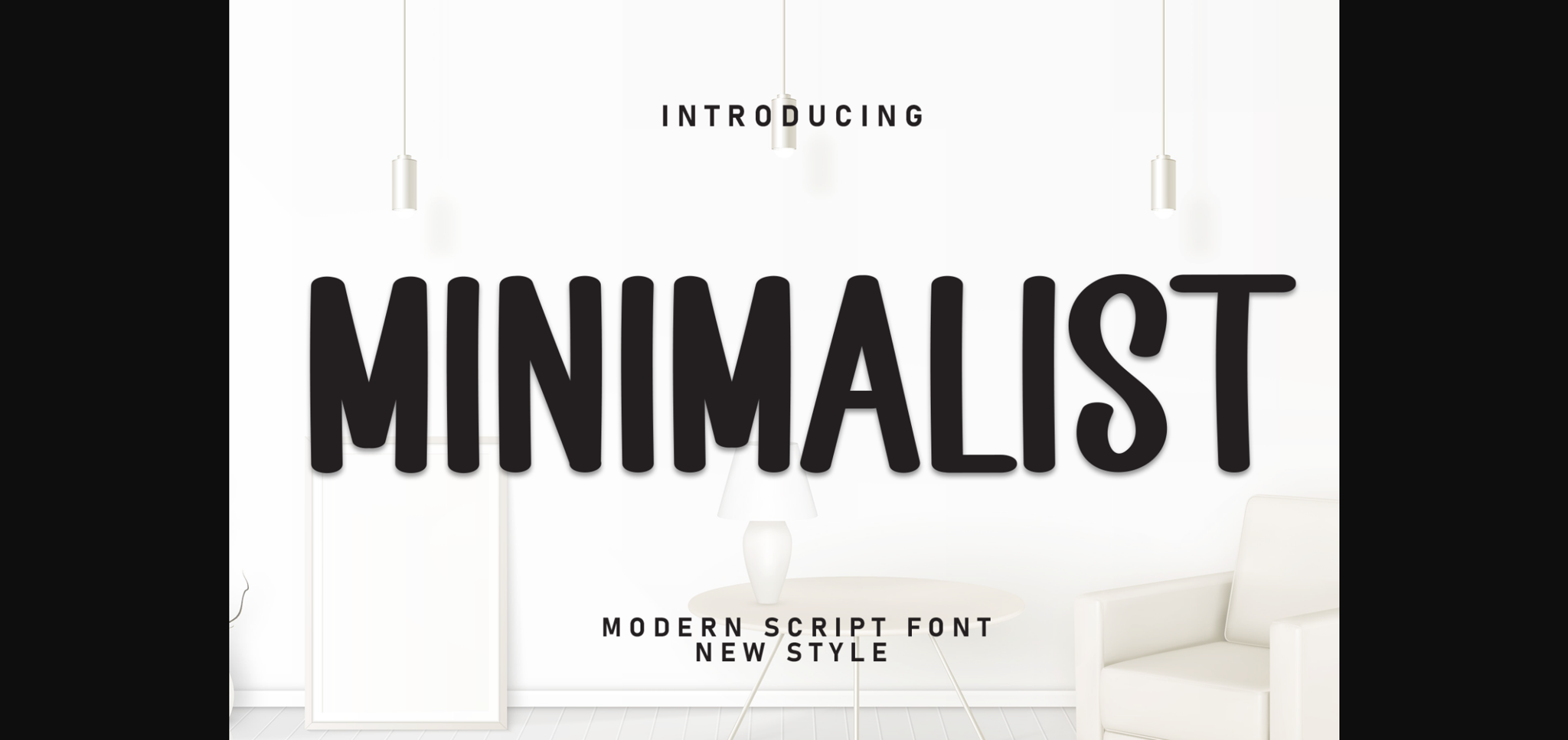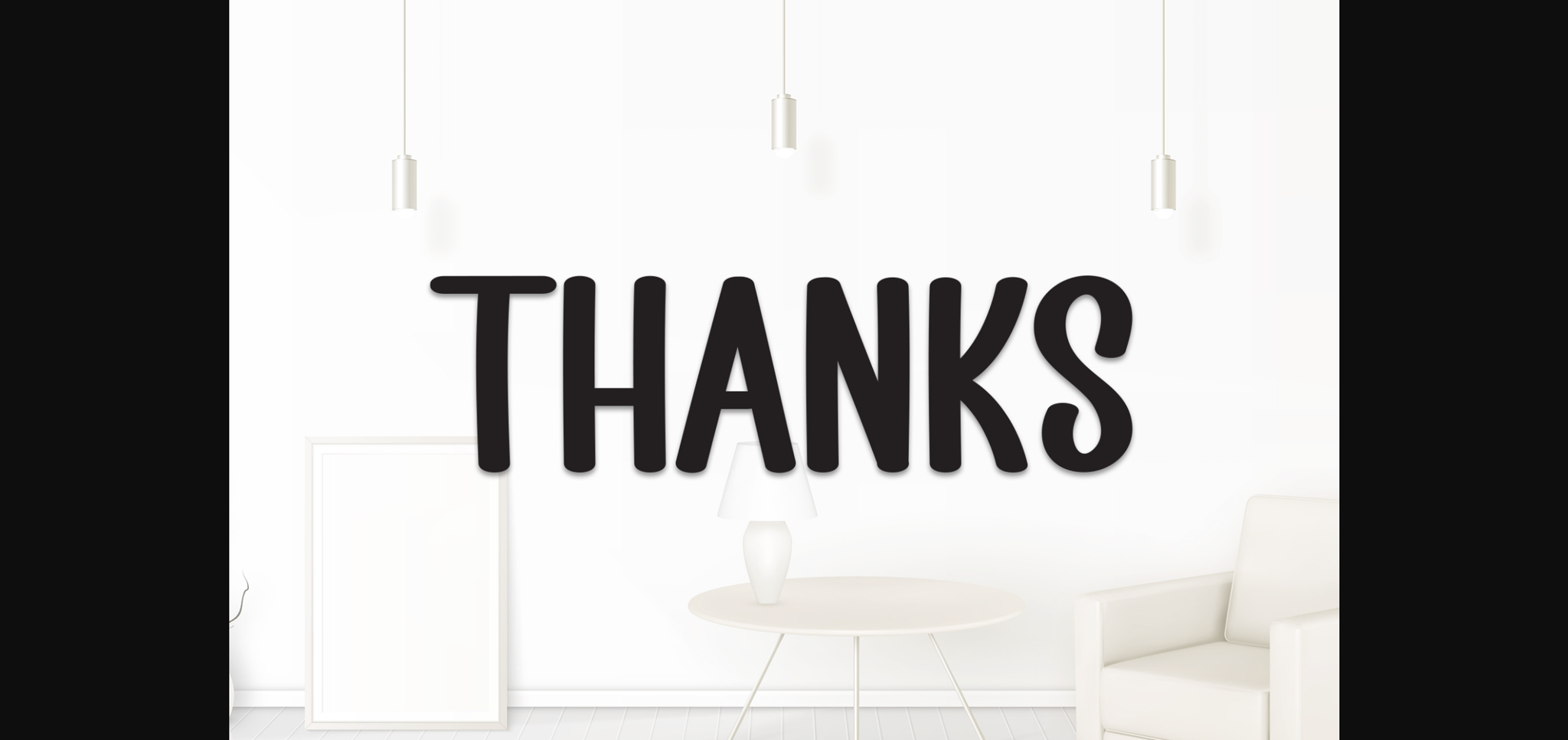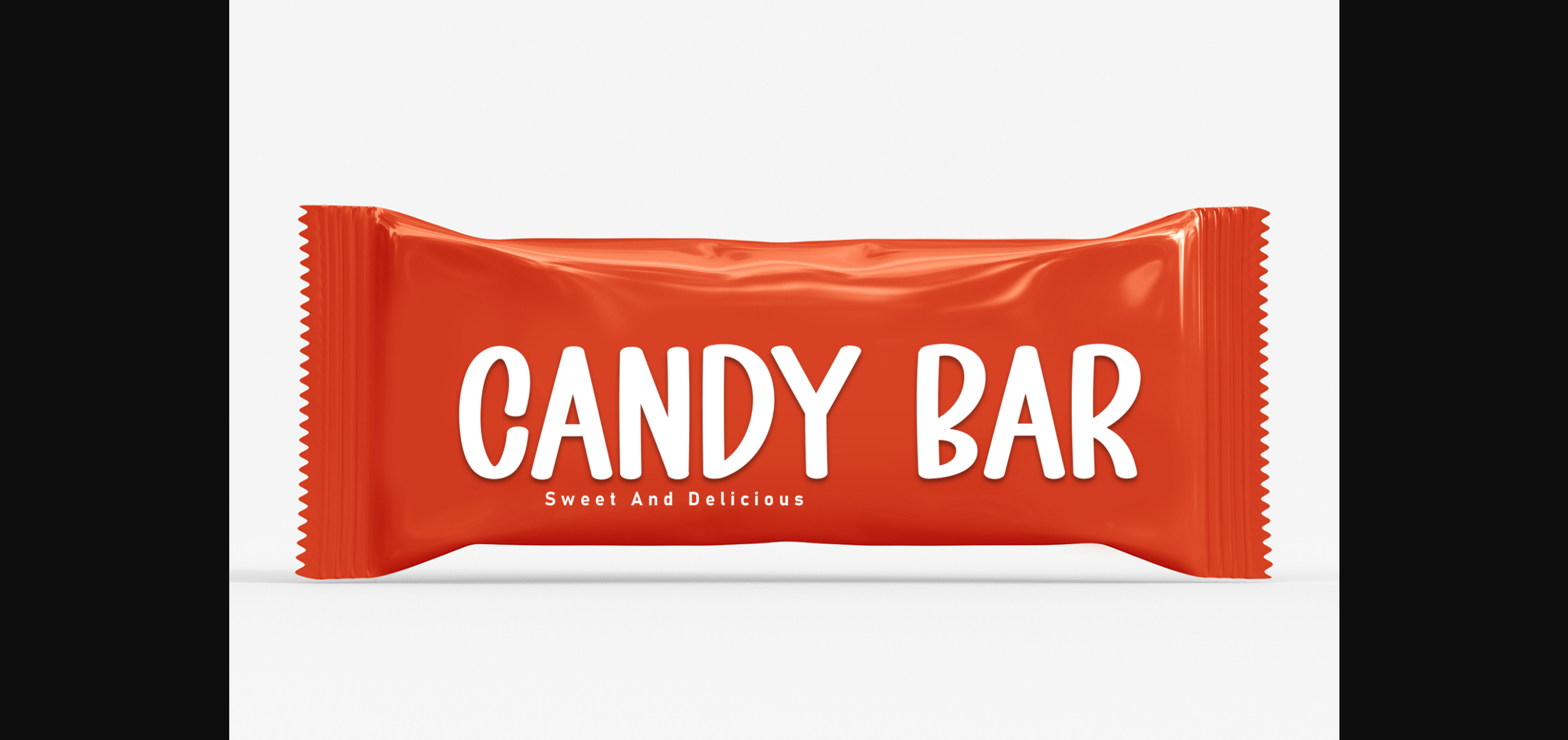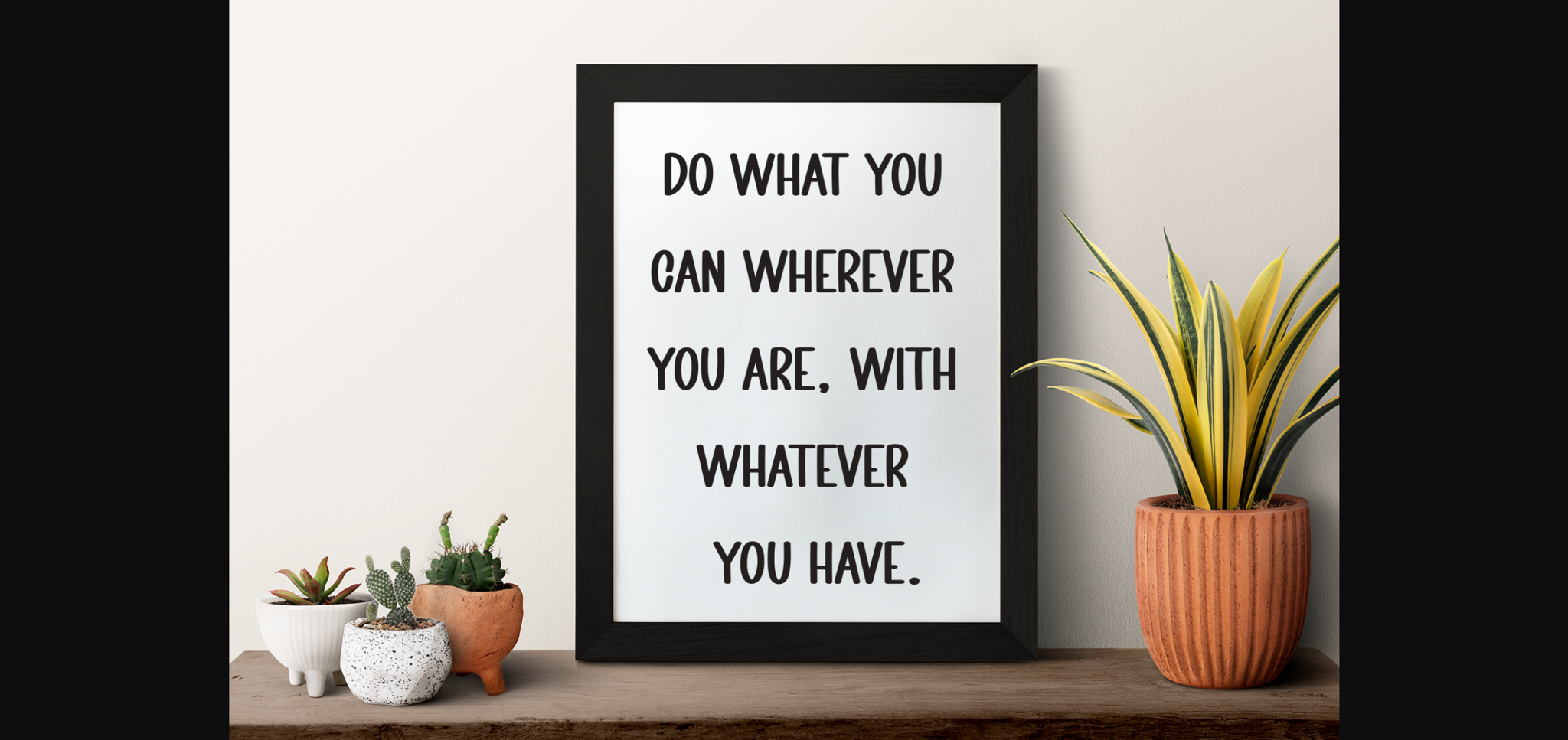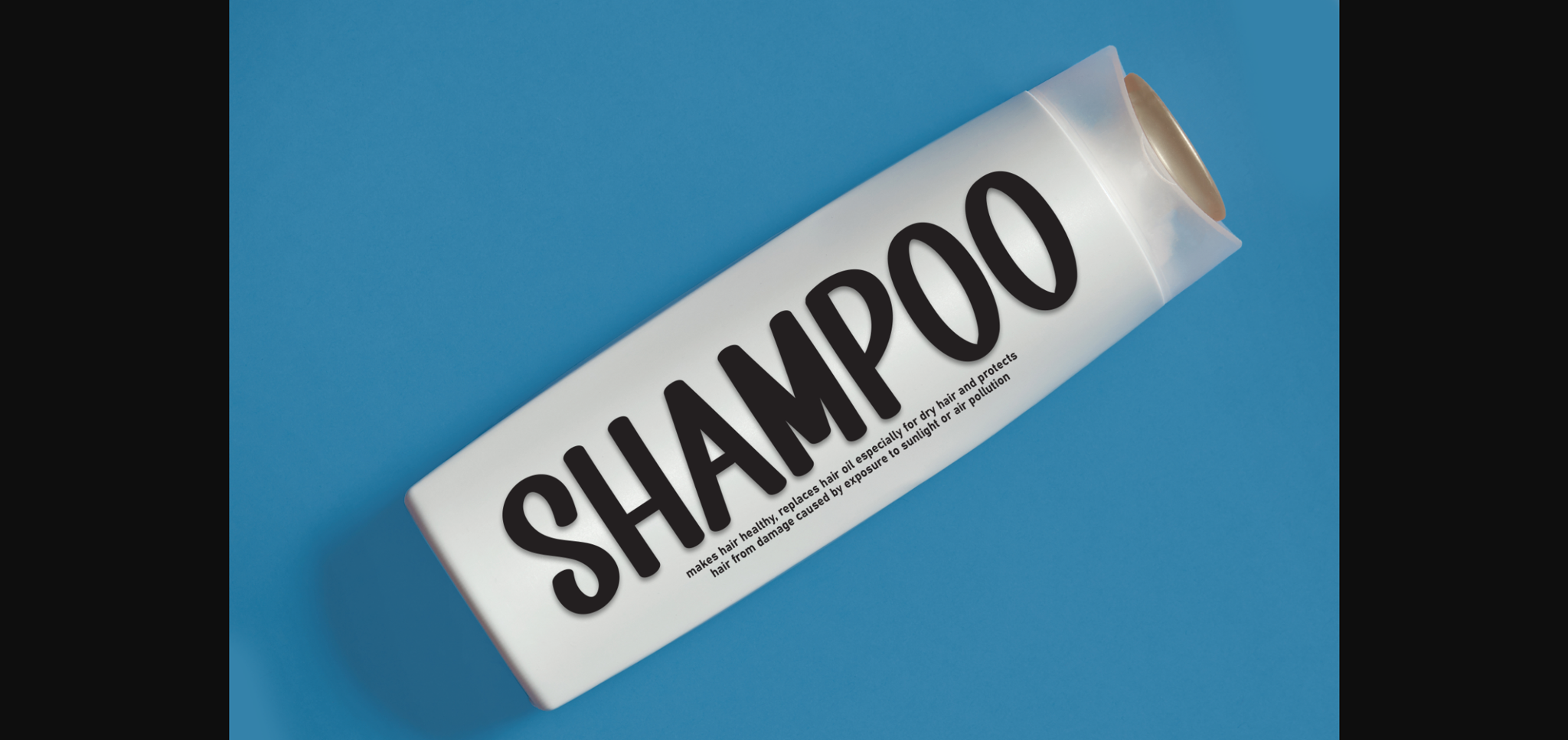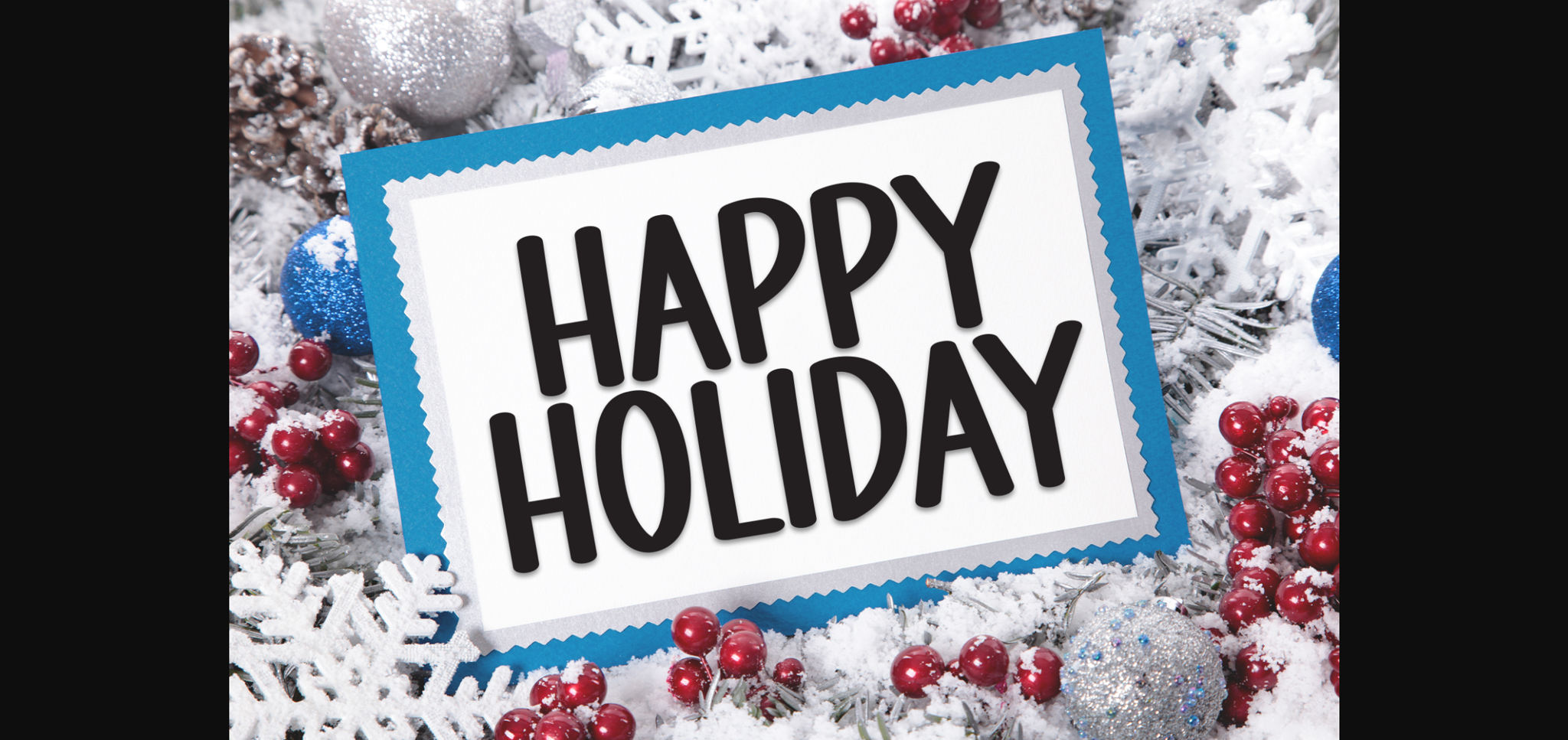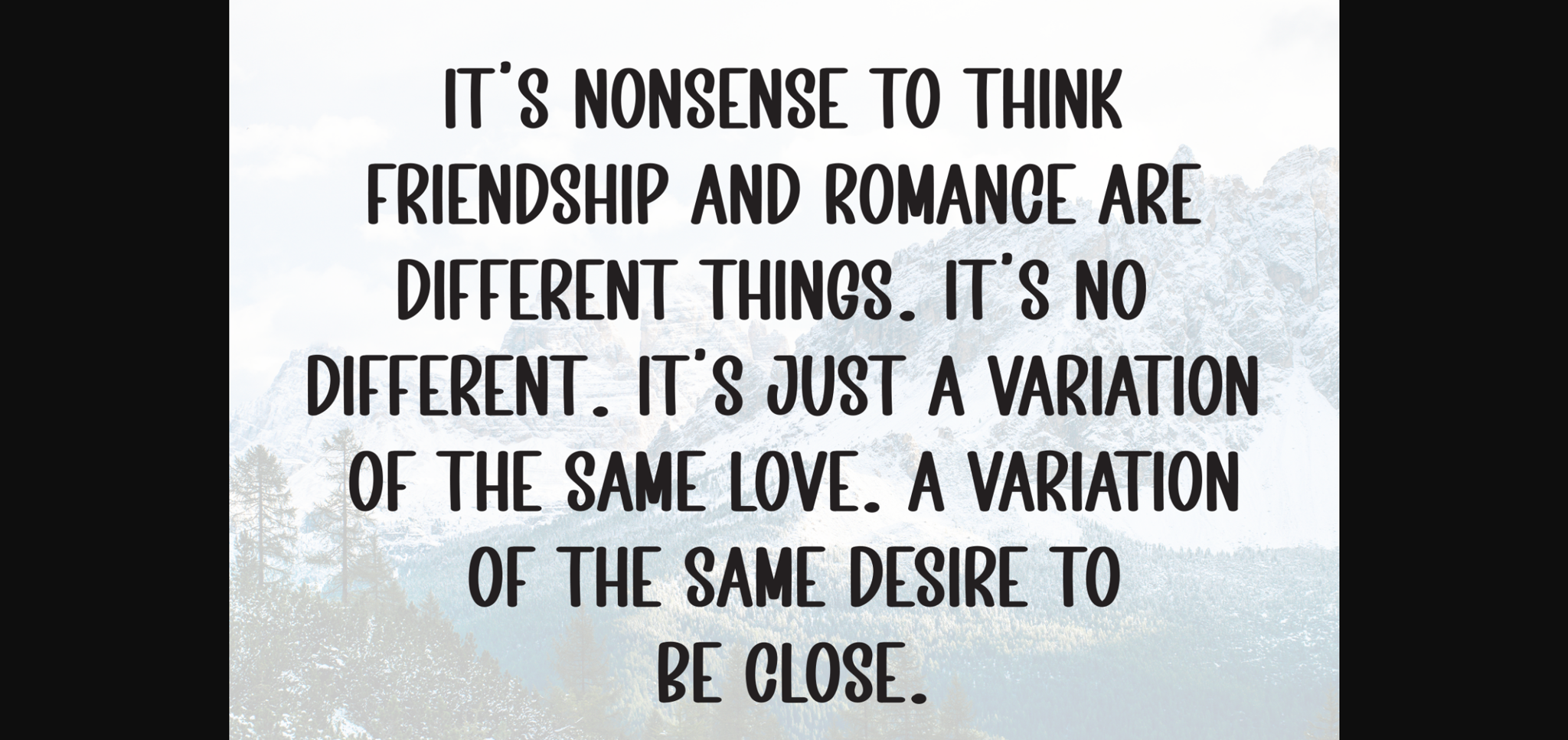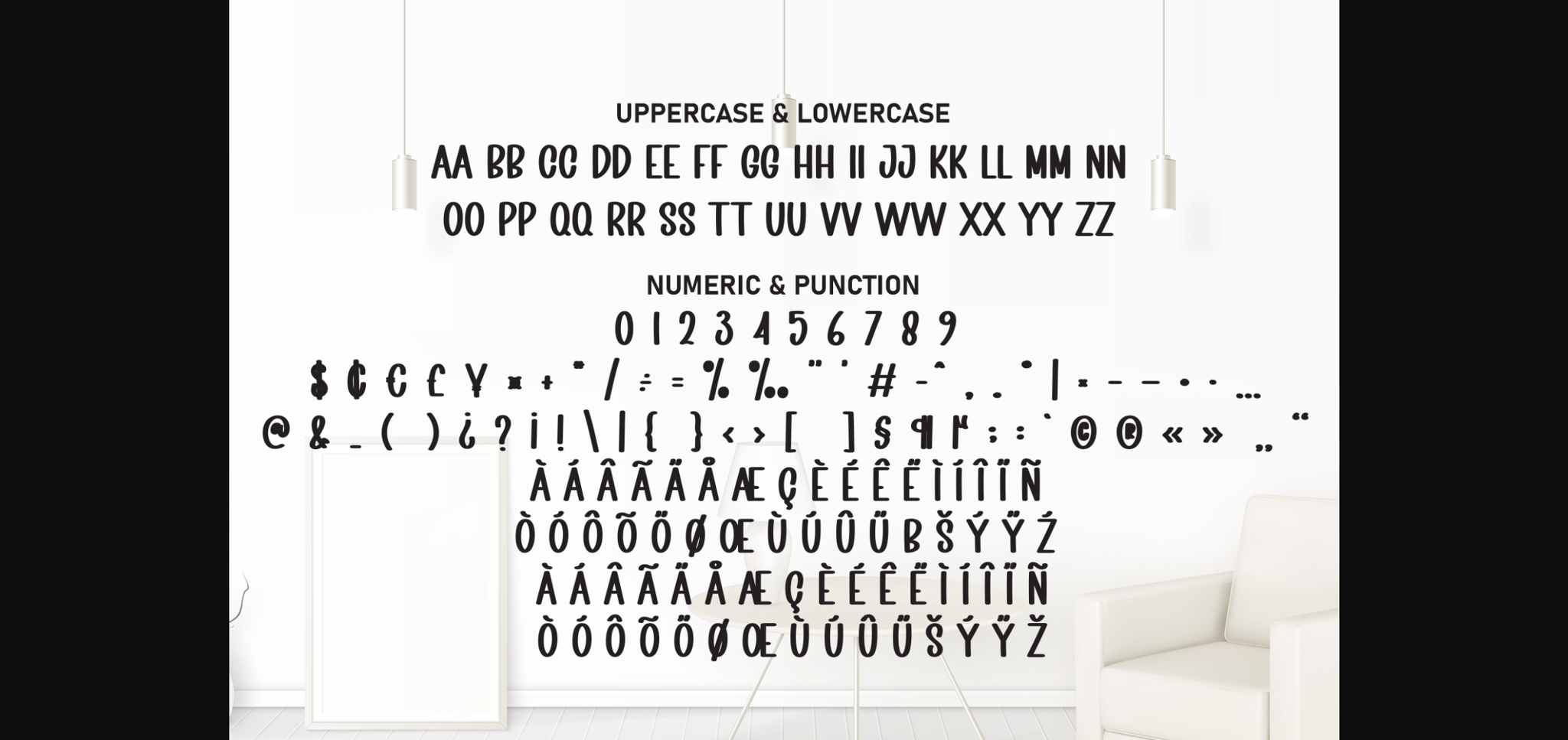
Minimalist Font
About Minimalist Font
Minimalist is a casual sans-serif font that radiates warmth and friendliness. Its clean lines and balanced proportions make it easy to read, while subtle quirks in letter shapes add personality. Ideal for invitations, posters, and branding, Minimalist brings a relaxed vibe to any design project.